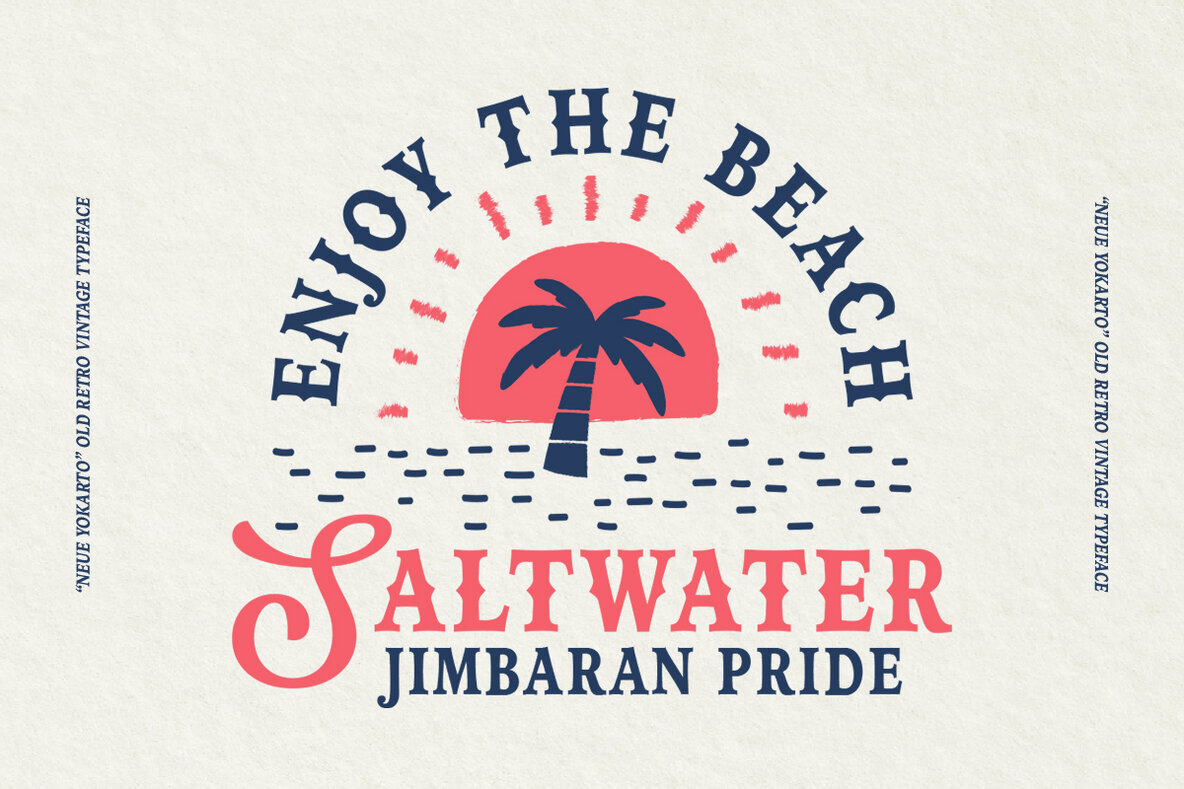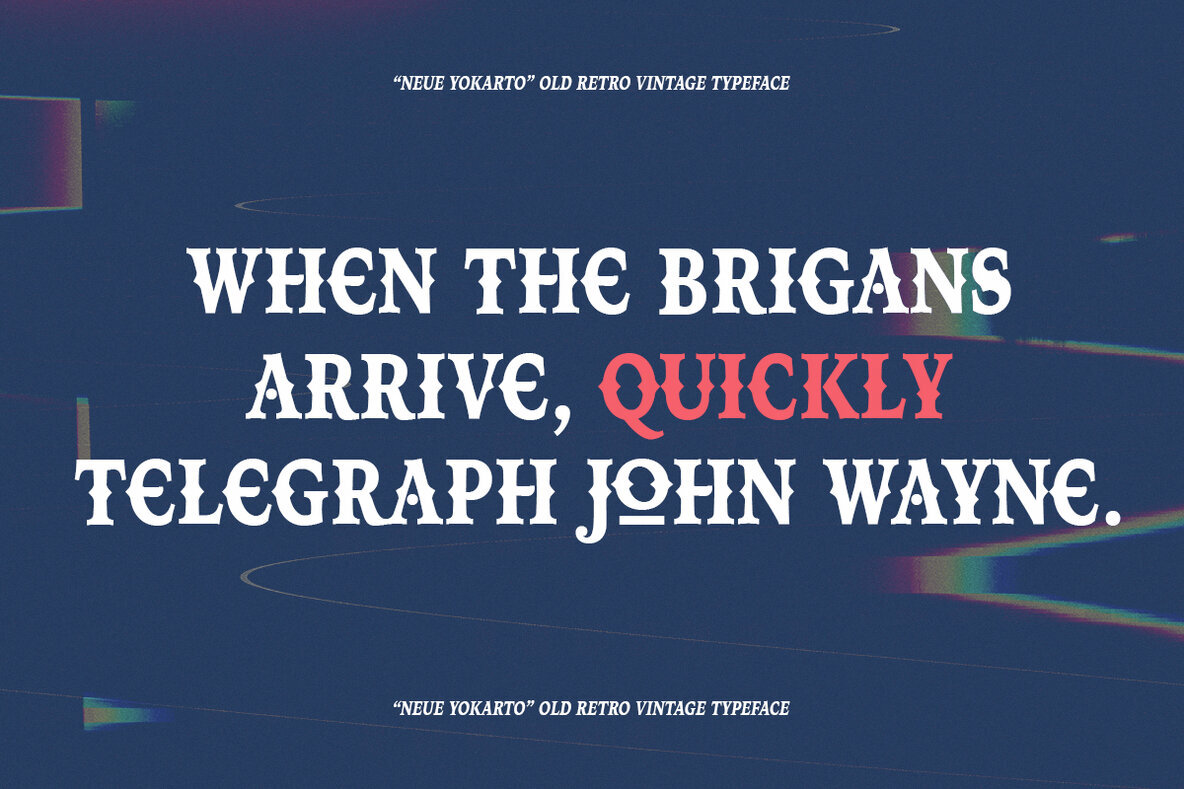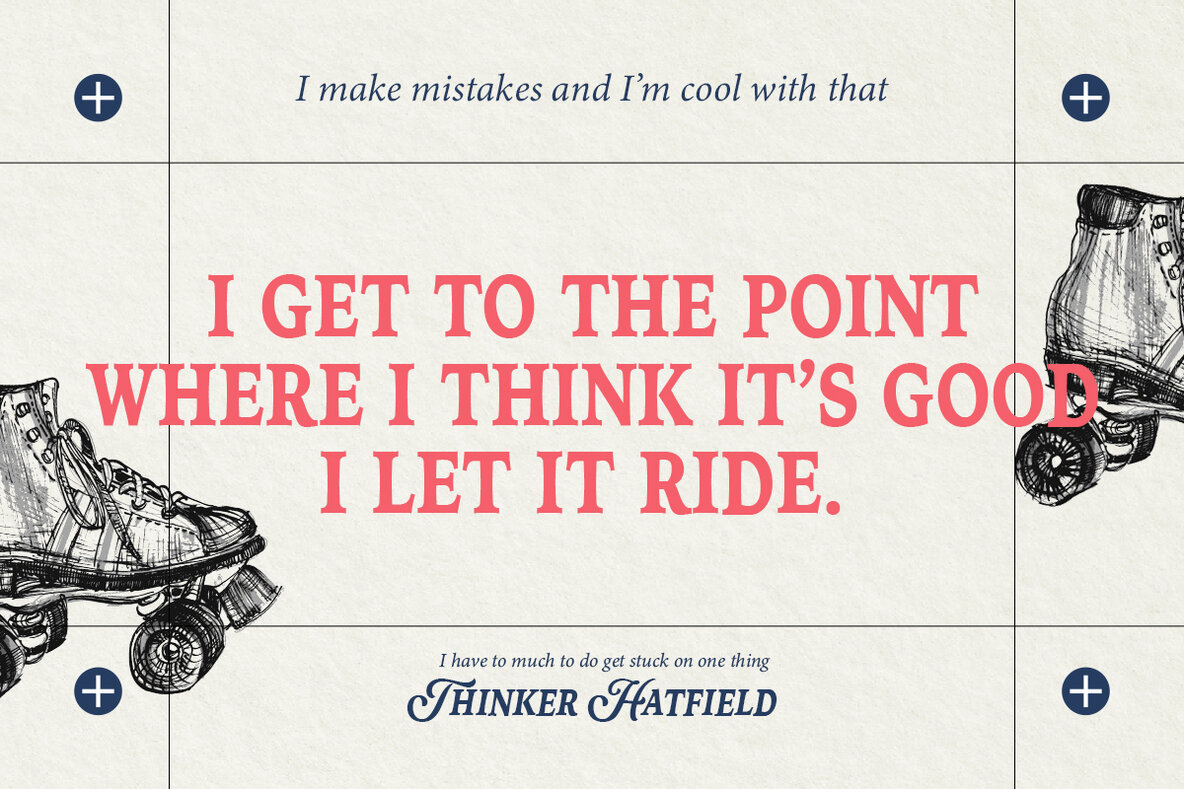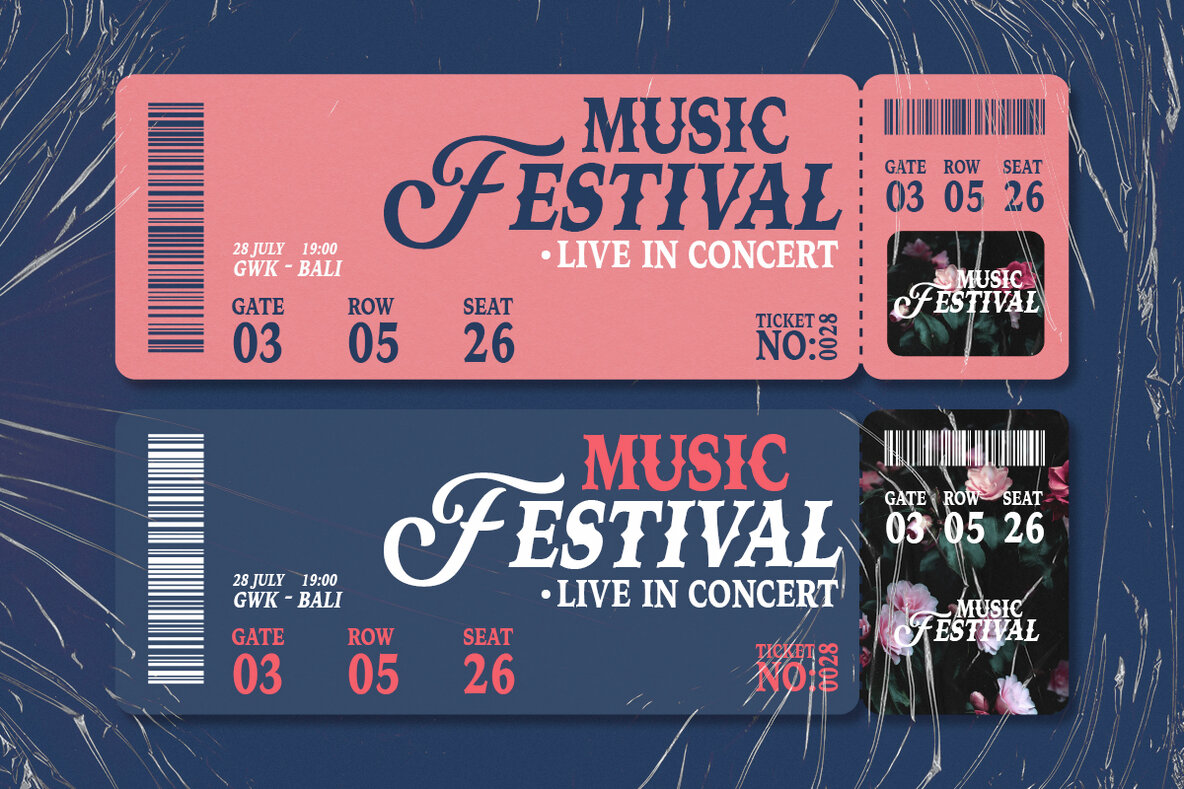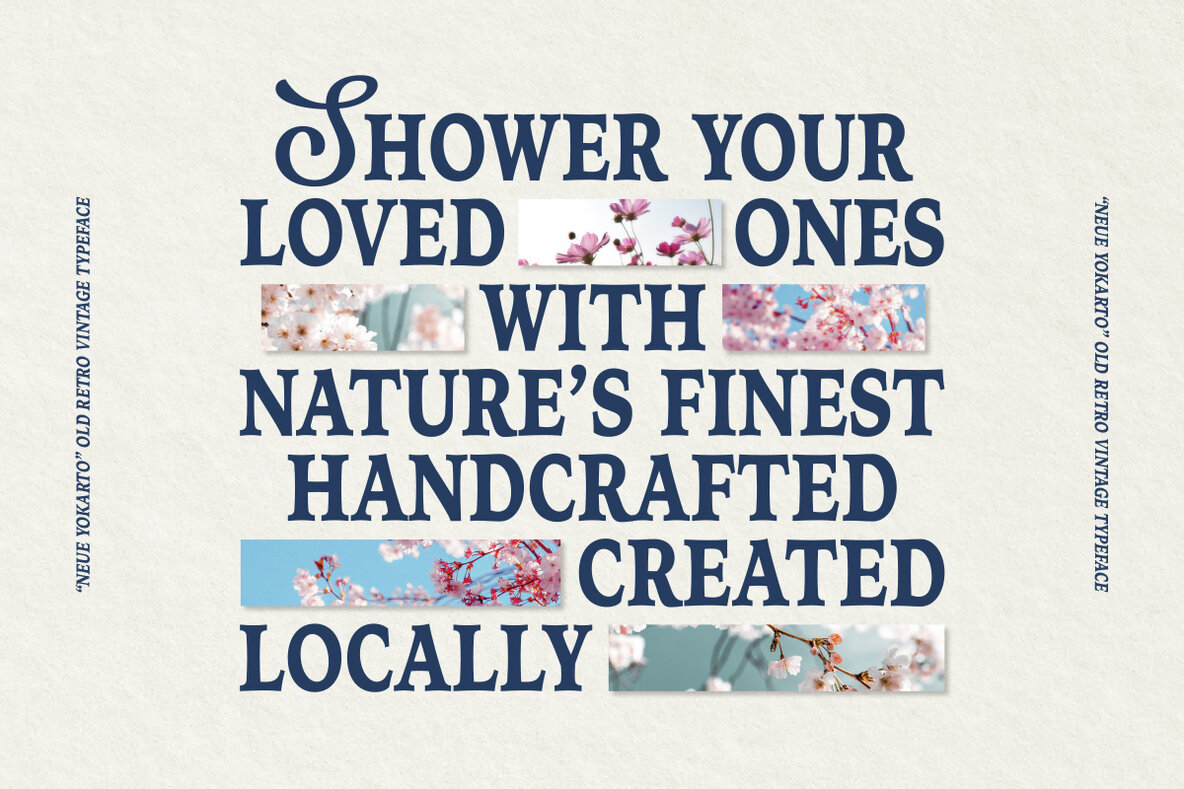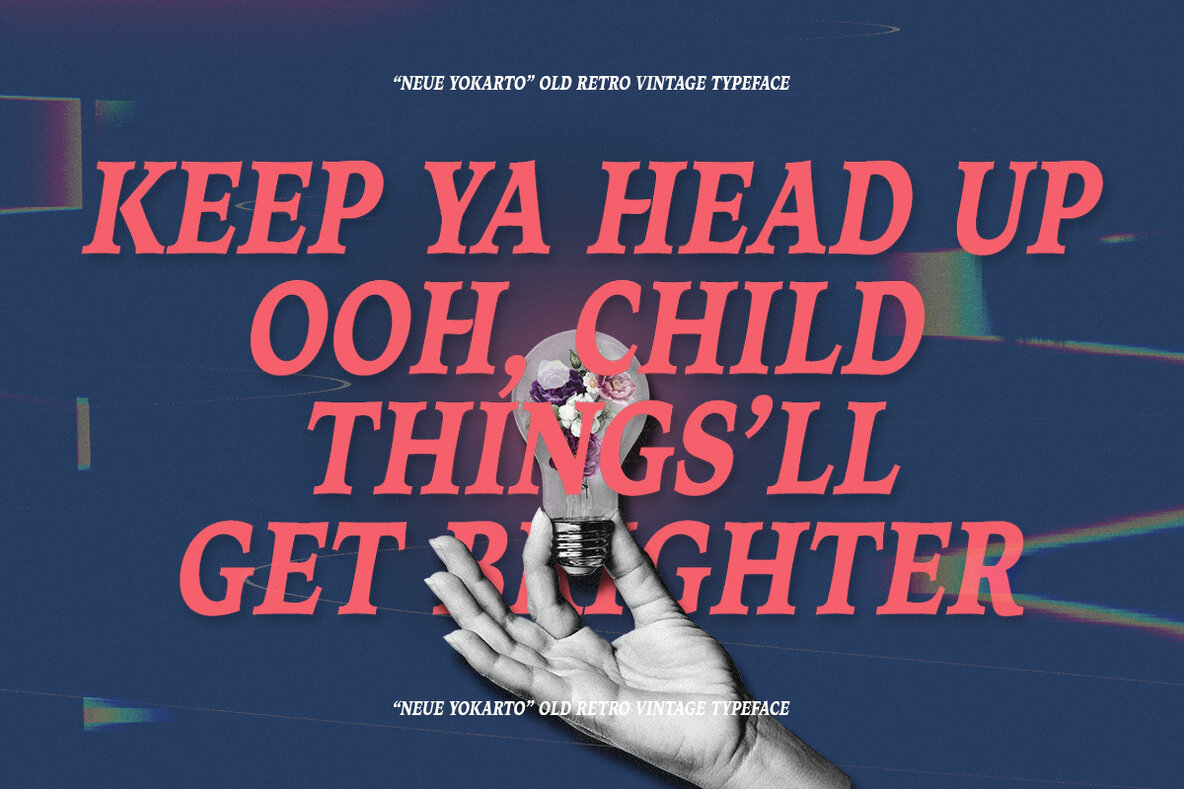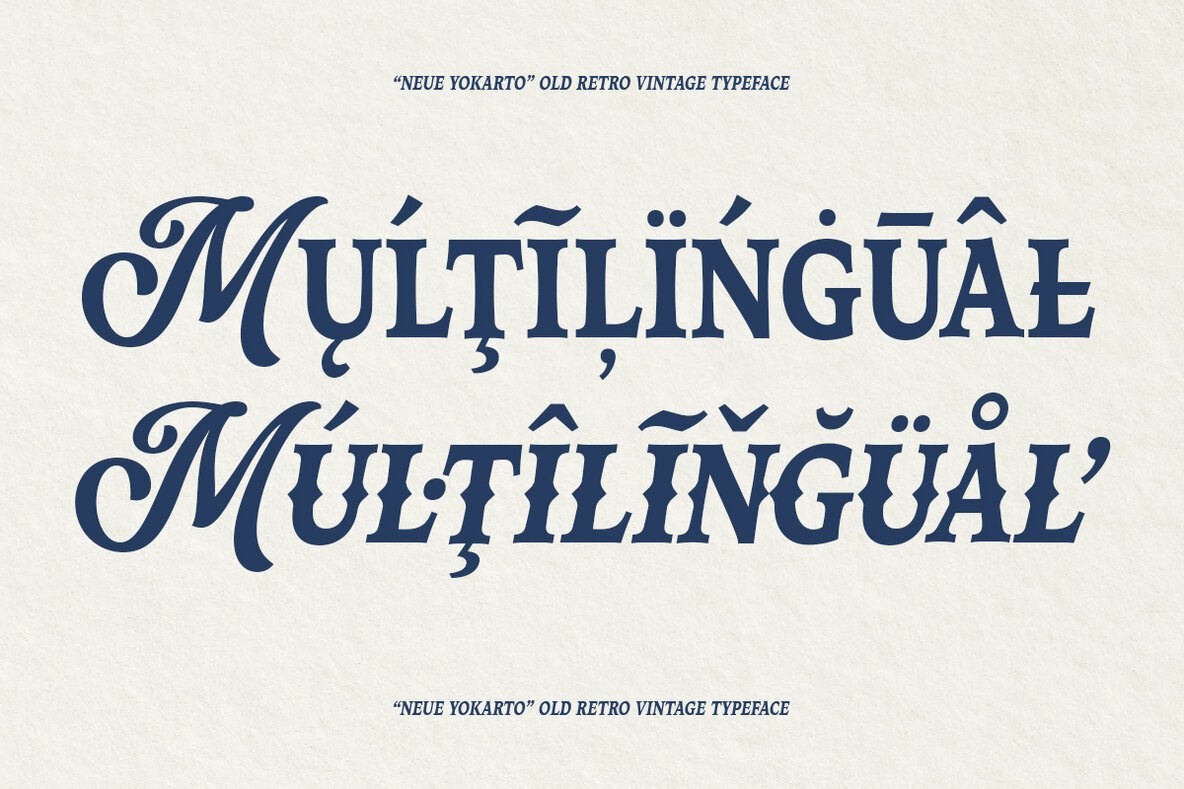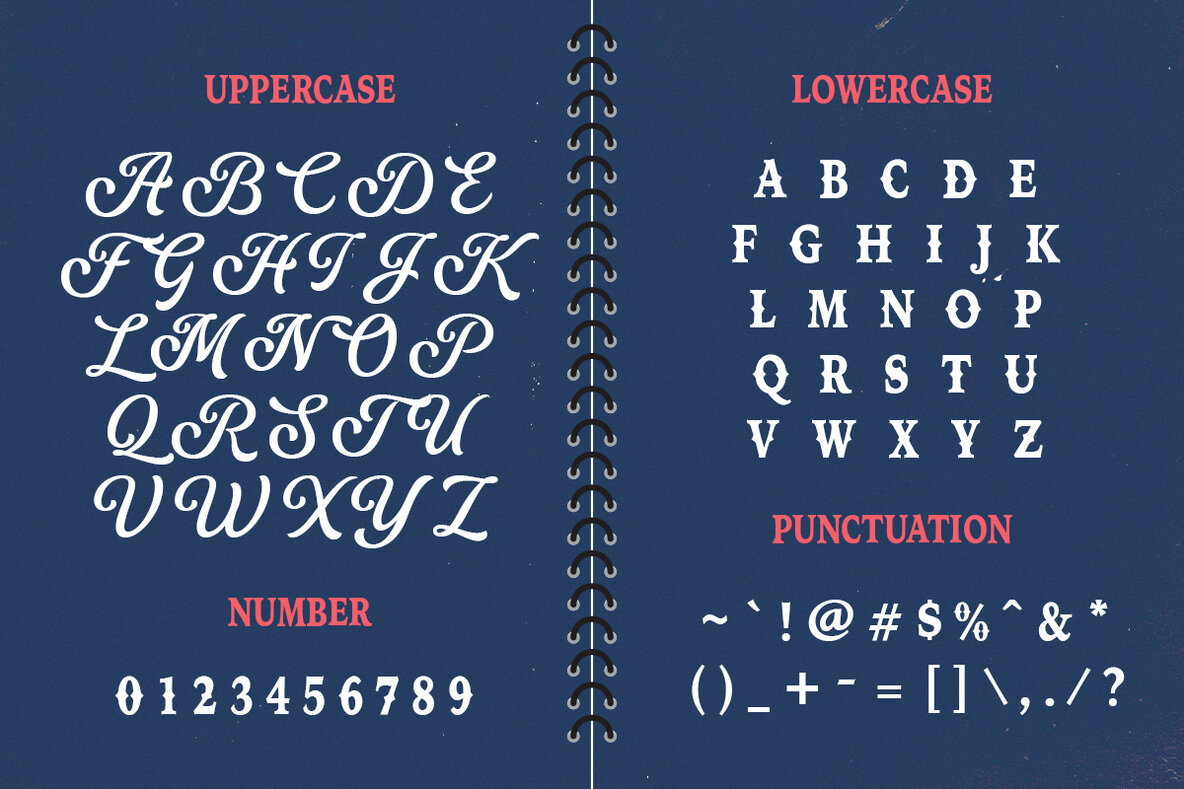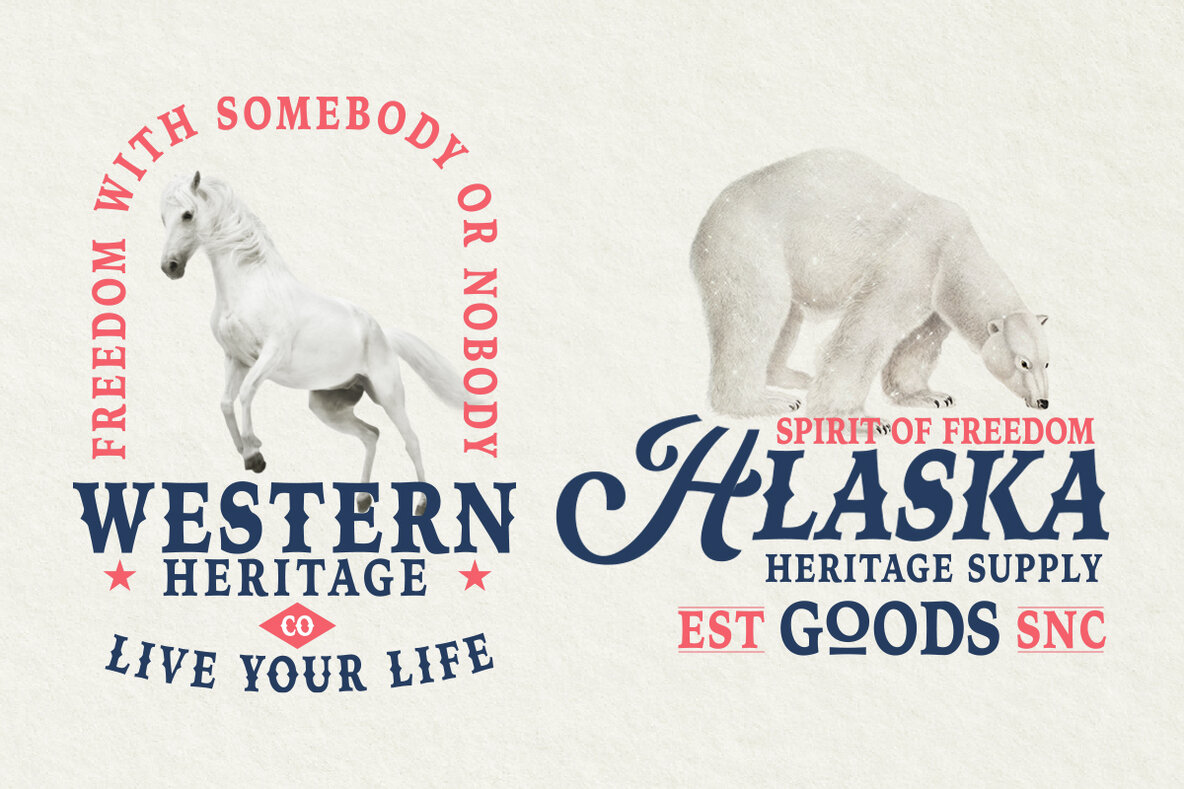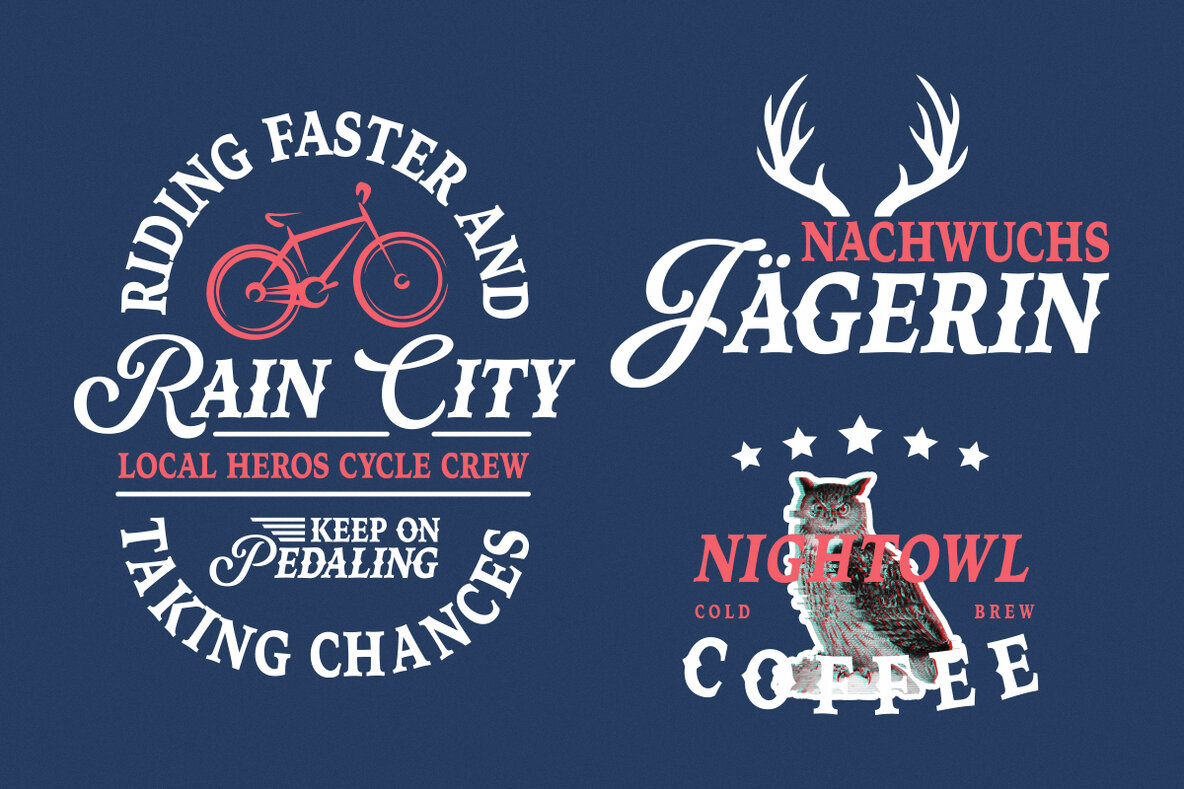
Neue Yokarto, another vintage-inspired font Pairing between Script and Slab Serif with the additional effect Normal and Spurs with italic style. Collected from many references such as vintage signage, logo, badges, and old-fashioned graphics. Neue Yokarto is An all-caps font, carefully crafted with a high ornamental taste.
Neue Yokarto is perfect for many display purposes. You can use this font for poster, label, logo, signboard, t-shirt, book cover, decoration, merchandise, and more!